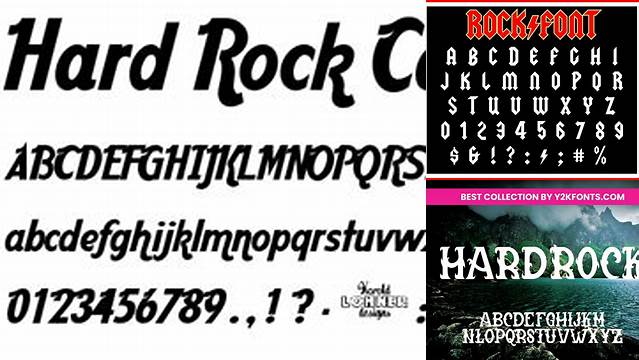
Hard Rock Cafe Font: Free Alternatives & Design Tips
Are you a fan of the Hard Rock Cafe? Do you love their iconic logo and the vibe they create? Well, if you're looking to capture that same energy in your own designs, you might be wondering about the Hard Rock Cafe font. Specifically, is the Hard Rock Cafe font free? The short answer is a bit nuanced, but don't worry, we'll break it down for you. This article dives deep into the world of the Hard Rock Cafe font, exploring its history, usage, and, of course, how you might be able to get your hands on it for your own creative projects. We'll cover everything from identifying the font to finding suitable alternatives, making sure you're well-equipped to inject a little rock 'n' roll into your designs. So, grab your virtual guitar, crank up the volume, and let's get started!
Understanding the Hard Rock Cafe Font
Let's start with the basics, shall we? The Hard Rock Cafe logo is instantly recognizable, and a huge part of that is due to its distinctive font. The primary font used by Hard Rock Cafe is a custom-designed typeface, which means it's not a readily available, free font like Arial or Times New Roman. It's been specifically crafted to embody the brand's identity: bold, edgy, and undeniably rock 'n' roll. The font's design typically features thick strokes, a somewhat condensed style, and a slight vintage feel, giving off a sense of history and timelessness. This combination perfectly complements the Hard Rock Cafe's atmosphere, which is known for its music memorabilia, energetic ambiance, and classic American fare. Understanding the unique characteristics of this font is crucial if you're aiming to replicate the Hard Rock Cafe look and feel in your own designs. It's not just about finding a font; it's about finding the font, or at least something that closely resembles it.
When we speak of the Hard Rock Cafe font, it's essential to distinguish between the primary font used for the logo and other fonts that might be employed for body text, headings, or promotional materials. The logo font is the star of the show, the instantly recognizable element that ties everything together. However, the restaurant and brand will often utilize supplementary fonts to diversify their communications, ensuring legibility and visual interest. While you might not find a free, exact match for the main Hard Rock Cafe logo font, there are several alternatives that can help you capture that same vibe. These alternatives often share similar characteristics, like bold weights and slightly condensed forms, to evoke the spirit of rock 'n' roll. So, even if you can't get the actual font, you're not totally out of luck. We'll be exploring those options later in this article. The point here is to be aware that the font family extends beyond the famous logo, with other fonts playing important supporting roles.
Now, let's address the elephant in the room: can you just download the Hard Rock Cafe font for free? Well, usually, the answer is no. Since it is a custom design, it's not available for free download in a standard font library. It's the intellectual property of the Hard Rock Cafe brand, and, as such, is protected. Trying to obtain and use the font without permission would be a violation of copyright laws. Think of it this way: the font is part of what makes the Hard Rock Cafe special, just like their amazing burgers and the guitars on the walls. But don't get discouraged, because we'll explore viable alternatives and options that will allow you to rock your designs.
The Hard Rock Cafe Font Style and Design Elements
The iconic Hard Rock Cafe font is more than just a collection of letters; it's a carefully crafted design that reflects the brand's identity. The primary font used in the logo and often throughout Hard Rock Cafe's branding is characterized by its boldness and strong presence. It's designed to grab attention, just like a screaming guitar solo. The strokes are generally thick, giving the font a solid and substantial feel, which resonates with the brand's association with rock music and its enduring legacy. This thickness also helps the font stand out, making it clear and readable even in larger sizes or when used in high-impact environments, like on a neon sign or promotional poster. This focus on readability and visual impact is a key aspect of the font's design.
Furthermore, the font often exhibits a slight vintage or retro vibe. This stylistic choice connects the brand to the history of rock 'n' roll, its roots, and its evolution over time. The Hard Rock Cafe aims to represent the classics and enduring spirit of rock, and the font's design reflects that. Elements like slight imperfections or the suggestion of hand-drawn qualities can contribute to this retro aesthetic. This blend of boldness and vintage flair is a critical component of the font's appeal. It adds to the overall sense of the brand’s character and how it connects to rock music's history, making it instantly recognizable and giving the font a sense of depth and personality. This blend makes the font more memorable.
Another key characteristic of the Hard Rock Cafe font is its legibility. Despite its bold appearance and vintage aesthetic, the font is designed to be easy to read. It's not overly stylized or complicated, meaning its primary purpose is to communicate the Hard Rock Cafe message clearly. This is essential for ensuring that the brand's name, slogans, and any other written content are instantly understood. Legibility is crucial when designing signage, menus, and other communications materials. The choice of font, its thickness, and its overall structure are all carefully chosen to ensure optimal readability, ensuring that the brand messaging is clear and effective, making it accessible to a broad audience. This is a critical element of the Hard Rock Cafe font.
Finding Similar Fonts (Free and Paid)
Okay, so we've established that the exact Hard Rock Cafe font isn't readily available for free. But don't fret! The good news is that many fonts are similar, offering a similar style. Several font foundries and online platforms offer fonts that capture the bold, retro, and energetic spirit of the Hard Rock Cafe's typography. The goal is to find a font that evokes the same feeling and visual impact, even if it's not a perfect match. The search for similar fonts can be exciting. Let's break down some of the options, exploring both free and paid alternatives.
Free Font Options
When it comes to free fonts, the options may require a bit more digging. However, several platforms offer high-quality, free fonts that share characteristics with the Hard Rock Cafe font. Websites like Google Fonts, DaFont, and Font Squirrel are treasure troves of diverse fonts, some of which may be similar. Remember to be realistic; a perfect match is unlikely for a custom-designed font. What you're aiming for is a font that conveys a similar feel and visual character.
Here's what to look for in free font options: Firstly, seek bold, thick fonts. Like the Hard Rock Cafe font, you want something with a strong presence. Look for typefaces with condensed or slightly condensed styles, which can mimic the font's overall proportions. Also, search for fonts that offer a vintage or retro aesthetic. These fonts will have imperfections. You could also explore fonts with rounded corners or softened edges, a design element present in many rock-related designs. These elements enhance the vintage feel. When choosing, consider the readability. Ensure the font is easy to read in different sizes and uses, from headlines to body text. Experiment with different font combinations. Sometimes, using a free font that almost matches, paired with a complimentary font, can create a similar effect. Be creative. There is a ton of free resources. Finding a matching font will take some searching, but the options available are excellent and can create the vibe you need for your projects.
Paid Font Options
If you're willing to spend a little money, the possibilities expand significantly. Paid fonts offer more design options, higher quality, and, in some cases, licensing that offers more freedom of use. Professional font foundries, such as Monotype, Adobe Fonts, and MyFonts, provide an extensive collection of fonts. These platforms offer a wide selection of fonts. You'll find various options that closely resemble the Hard Rock Cafe font. These premium fonts often offer more extensive character sets, including different weights, styles, and features. This means you can get variations and alternatives to suit your creative needs. The quality and design of the fonts tend to be higher when you pay. You'll see a huge difference between free fonts and paid fonts. They are designed professionally by expert font designers. This can significantly improve the overall quality and appearance of your designs. They provide legal protection, providing peace of mind, as well as the option to use the font for commercial projects. While the initial cost might be higher, the benefits of paid fonts can be considerable, especially for long-term design needs.
Where to Use Your Chosen Font
Once you've found a suitable font (or fonts) to emulate the Hard Rock Cafe style, you'll need to understand where it's appropriate. This will ensure that your design projects resonate and stay true to the chosen aesthetic. Here are some key areas where you might utilize a Hard Rock Cafe-inspired font, along with tips for successful execution. Knowing where and how to use the font is essential for creating a cohesive and effective design.
Designing Logos and Branding
One of the primary uses for a font similar to the Hard Rock Cafe style is within logos and branding. A strong, bold font is perfect for creating a memorable logo. It can instantly communicate the essence of your brand. If you're developing a logo for a business or project, ensure that the font is easy to read and visually appealing. It should also be memorable. Experiment with different font weights and styles to find the right balance of visual impact and brand personality. For example, in a retro-themed restaurant or bar logo, the strong font can be coupled with a vintage color palette. This will reinforce the connection with the rock and roll theme. Using a related font in branding materials such as business cards and stationery creates a cohesive look. This maintains brand consistency across all media.
Creating Posters and Flyers
Posters and flyers are other great places to use the Hard Rock Cafe-style font. The bold, attention-grabbing font is perfect for headlines and promotional text. If you're designing a poster for a concert, event, or promotion, use the font for titles and key information. This makes it easy to grab people's attention. Remember that readability is key. Even if the font is stylish, make sure the text is legible from a distance. Pair the font with strong imagery and a complementary color scheme. This will create a visually compelling design. Also, always check the design elements. These are things such as font sizes, color choices, and spacing. These elements will create an eye-catching design that communicates your message effectively.
Designing Website Headings and Graphics
If you're designing a website, you can use the chosen font for headings and graphic elements. The font can convey a similar vibe in the digital realm. If you are working on a site for a music-themed blog, restaurant, or event, use the font for headings. Use it to create a consistent visual style. Also, ensure that the font is responsive and looks good on different screen sizes. This will provide a seamless experience for all visitors. Remember to consider the overall design of your website and how the font integrates with your content. By using a strong, eye-catching font for your website elements, you can create a more memorable and engaging experience for your audience.
Tips for Successful Implementation
As you're integrating a Hard Rock Cafe-inspired font into your projects, it's crucial to follow some best practices. These practices will help to ensure the font's effective use and maintain design integrity. Here are some tips to guide you, helping your creative endeavors succeed. From understanding how to implement the font effectively, these recommendations will help you achieve desired outcomes.
Prioritize Readability
Above all else, prioritize readability. No matter how stylish a font is, it must be legible. Ensure that the font is easy to read in different sizes and against various backgrounds. Select a font weight that works well in both large headlines and smaller text. A well-designed font choice should enhance and not hinder the readability of your design. Prioritizing readability is always key to ensuring that your message is communicated clearly.
Experiment with Font Combinations
Don't be afraid to experiment with font combinations. Using a bold font for headlines and a more readable font for body text can create a visual hierarchy. Try pairing your Hard Rock Cafe-inspired font with a complementary font. This will balance the design and enhance readability. Finding the right font pairing is critical for a successful design. Using different styles will help create something that is aesthetically pleasing and functional.
Consider Your Audience and Context
Always consider your audience and the context of your design. Ask yourself if the font matches your target demographic and the overall message you want to convey. If the vibe of your design does not match your brand, you won't have the results you desire. The font should also align with your brand's identity. Ensure that the design suits the project and the message. Matching your audience's needs is key to any design project.
Balance Creativity with Functionality
Strike a balance between creativity and functionality. While it's great to experiment with different font styles, make sure your design remains functional. The design should convey the message clearly and effectively. Don't let the font overshadow the content. Remember, the goal is to create a visually appealing design that serves its purpose.
Conclusion: Rock Your Designs
So, there you have it, guys! While getting the actual Hard Rock Cafe font for free might be a challenge, you have many ways to capture that iconic rock 'n' roll vibe in your own designs. By exploring similar font options, both free and paid, you can create visually appealing logos, posters, websites, and more. Remember to focus on boldness, readability, and the overall message you want to convey. Let the spirit of rock 'n' roll guide you, and get ready to rock your designs! Embrace the creativity, experiment with various fonts, and create something that is truly unforgettable. Whether you are a designer, a musician, or a fan of the Hard Rock Cafe, the world of typography offers exciting opportunities. Go out there and let your creativity shine!